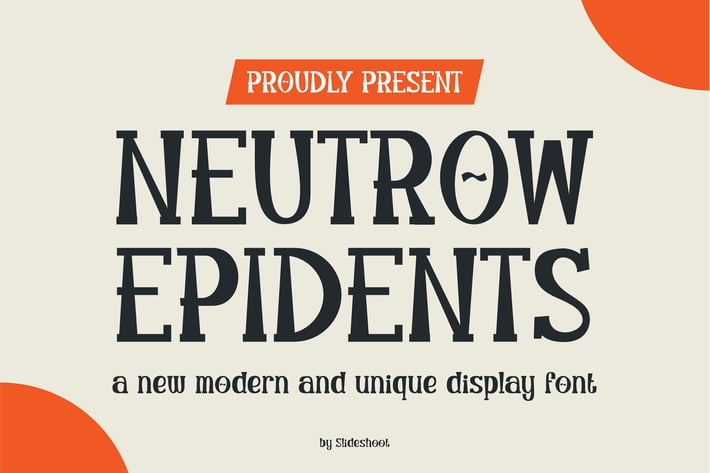
Newtrow Epidents || Unique Display Font
Introducing Newtrow Epidents Unique Display Font is a modern, trendy, bouncy and cute display font. It has a unique character with wood theme. It is perfect to be combined with invitation card designs, company logos, movie titles, movie names, business cards, book titles, brand names and various other designs.